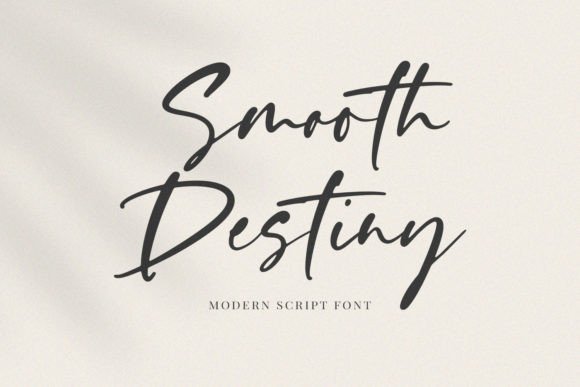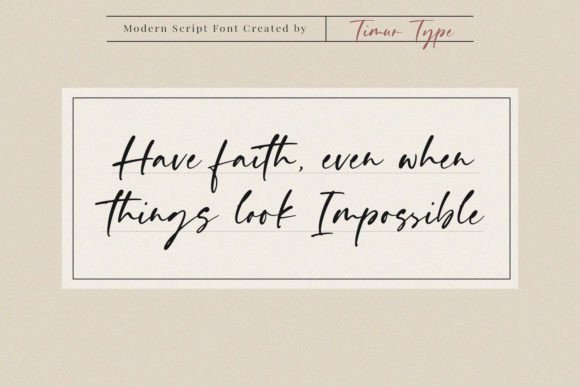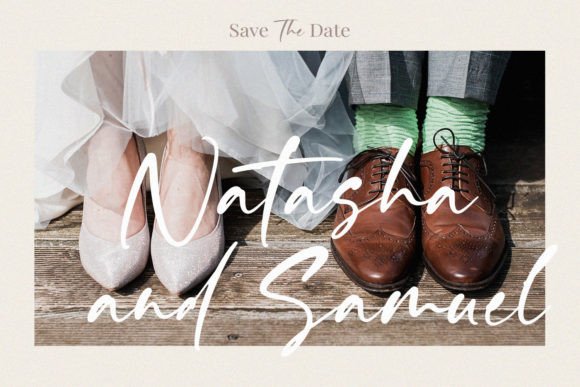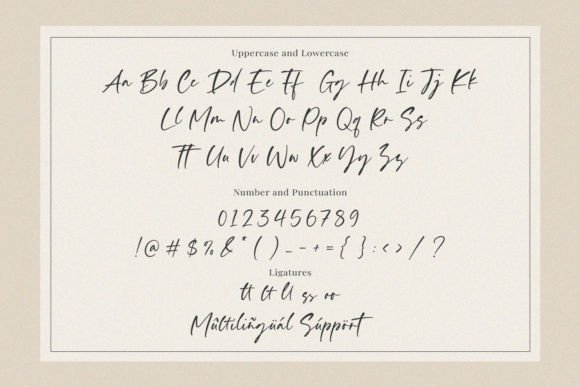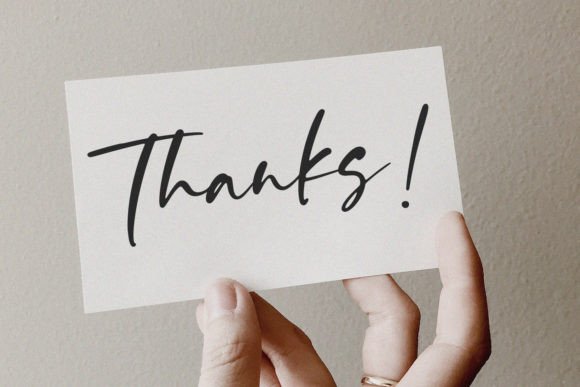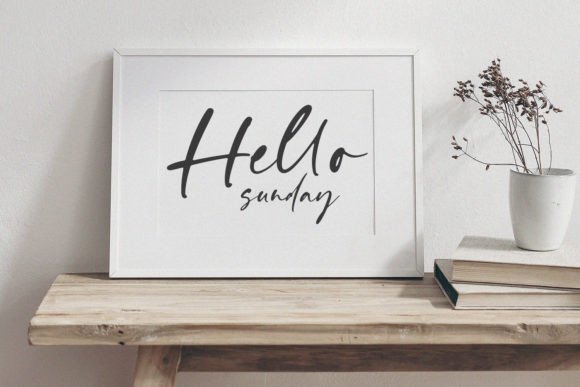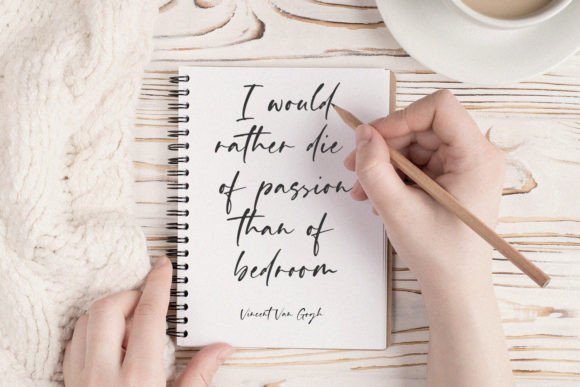
Smooth Destiny Font
About Smooth Destiny Font
Smooth DestinyFont is a beautifully handwritten script typeface designed with elegance and care. With its fluid strokes and personal feel, this font adds a heartfelt touch to any design. Whether you’re crafting product packaging, working on a branding project, or designing a romantic wedding invitation, Smooth Destiny brings a graceful and human charm to your work.
This font was created to help your words feel personal, stylish, and expressive—making it perfect for both professional and sentimental projects.
Ideal Uses for Smooth Destiny Font
This script font is a versatile choice across various creative categories:
• 🎁 Product Packaging – Perfect for skincare, handmade products, gourmet goods
• 💍 Wedding Materials – Invitations, menus, place cards, and wedding signage
• 📲 Social Media Graphics – Add flair to posts, stories, and promotional visuals
• 🖊️ Branding Projects – Great for logos, labels, and typography-based branding
• 📚 Magazines & Editorials – Ideal for elegant titles, quotes, and feature spreads
• 🌈 Creative Background Designs – Use it to overlay thoughtful words on images
Features of Smooth Destiny Font
• ✍️ Handcrafted Script Style – Designed to emulate smooth, elegant handwriting
• 🔤 Multilingual Support – Perfect for international projects
• 🌟 Stylish and Playful – Brings warmth and sophistication to any layout